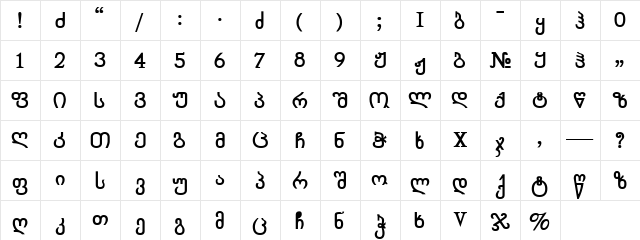
Chveulebrivy-ITV Bold
Design Context for Chveulebrivy-ITV Typeface
Chveulebrivy-ITV offers clean, dependable letterforms without strong stylistic allegiance, making it a practical choice for designers who need flexibility. Its bold stroke weight gives it real presence on the page.